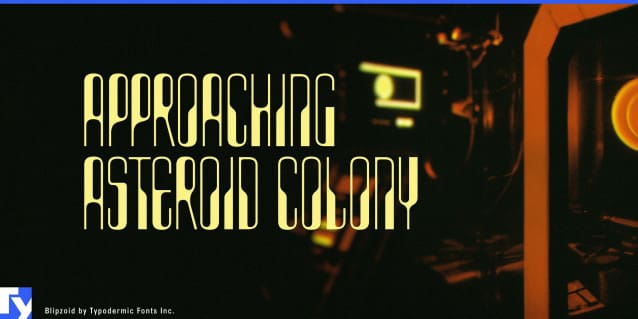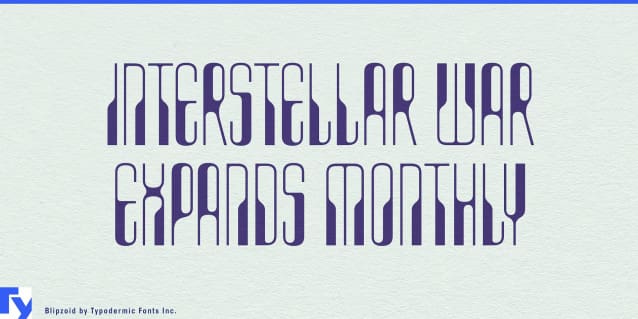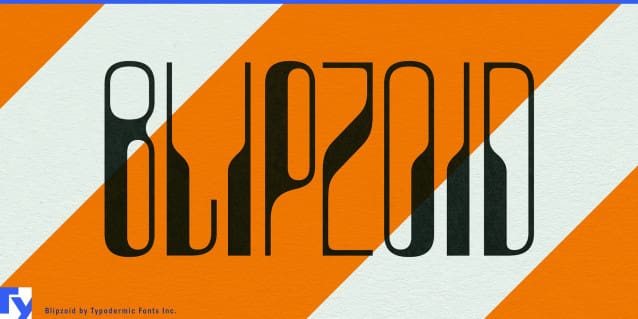
Blipzoid Font
Blipzoid Font: a one-of-a-kind typeface that fuses the elegance of art deco with the futuristic allure of 1960s sci-fi. This compact display font offers a captivating blend of sleek geometric shapes, striking contrast, and magnetic ink-inspired characters, creating a truly unique visual experience.
Step into a world where high-fashion meets pulp sci-fi, where the luxurious essence of art deco converges with the daring imagination of vintage science fiction. Blipzoid’s distinct letterforms effortlessly adapt to your project’s context, delivering an otherworldly ambiance or an air of sophistication reminiscent of haute-couture fashion.
Embrace the dual nature of Blipzoid Font in your next project, and let it transport your message to a realm of opulence and enigmatic futurism. Elevate your designs with this extraordinary typeface that seamlessly melds Carnaby Street’s 1960s mod aesthetic with the mysterious allure of uncharted galaxies.